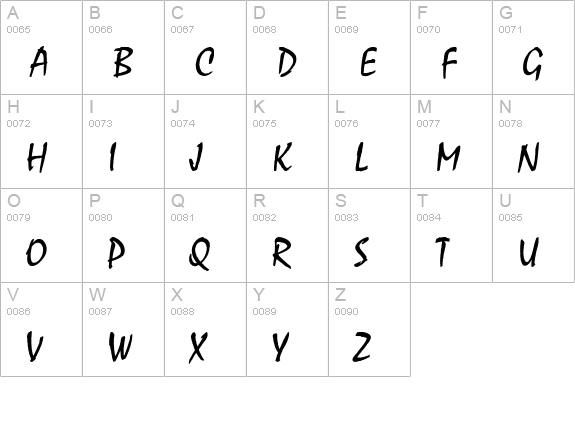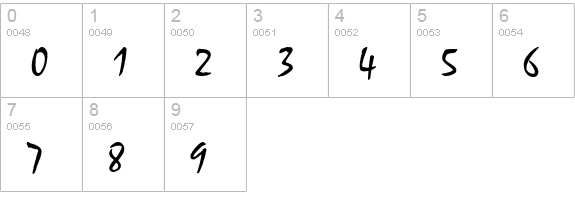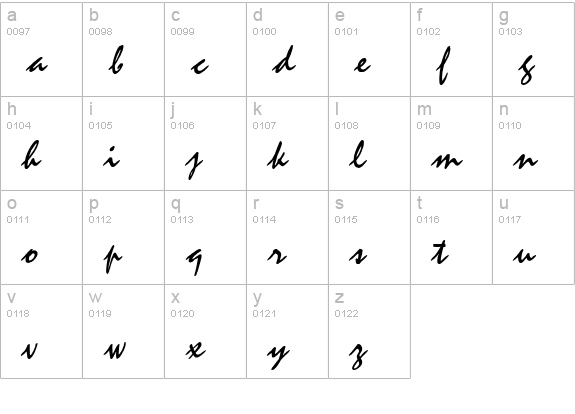
Stucco Normal Font Details
Stucco Normal is the standard, neutral variant in the Stucco typeface family \xE2\x80\x94 well suited to general body text, paragraphs, and standard typographic work.
Stucco Normal font is a versatile and stylish typeface that exudes elegance and sophistication. With its clean lines and classic appearance, this font is perfect for a wide range of design projects, from branding to editorial design. Stucco Normal is the ideal choice for those looking to add a touch of refinement to their work. Best of all, Stucco Normal font is completely free to download at FontsMarket.com. This means you can enhance your projects with this beautiful font without any cost involved. Don't miss out on this amazing opportunity to elevate your designs with Stucco Normal font - download it today and see the difference it can make!